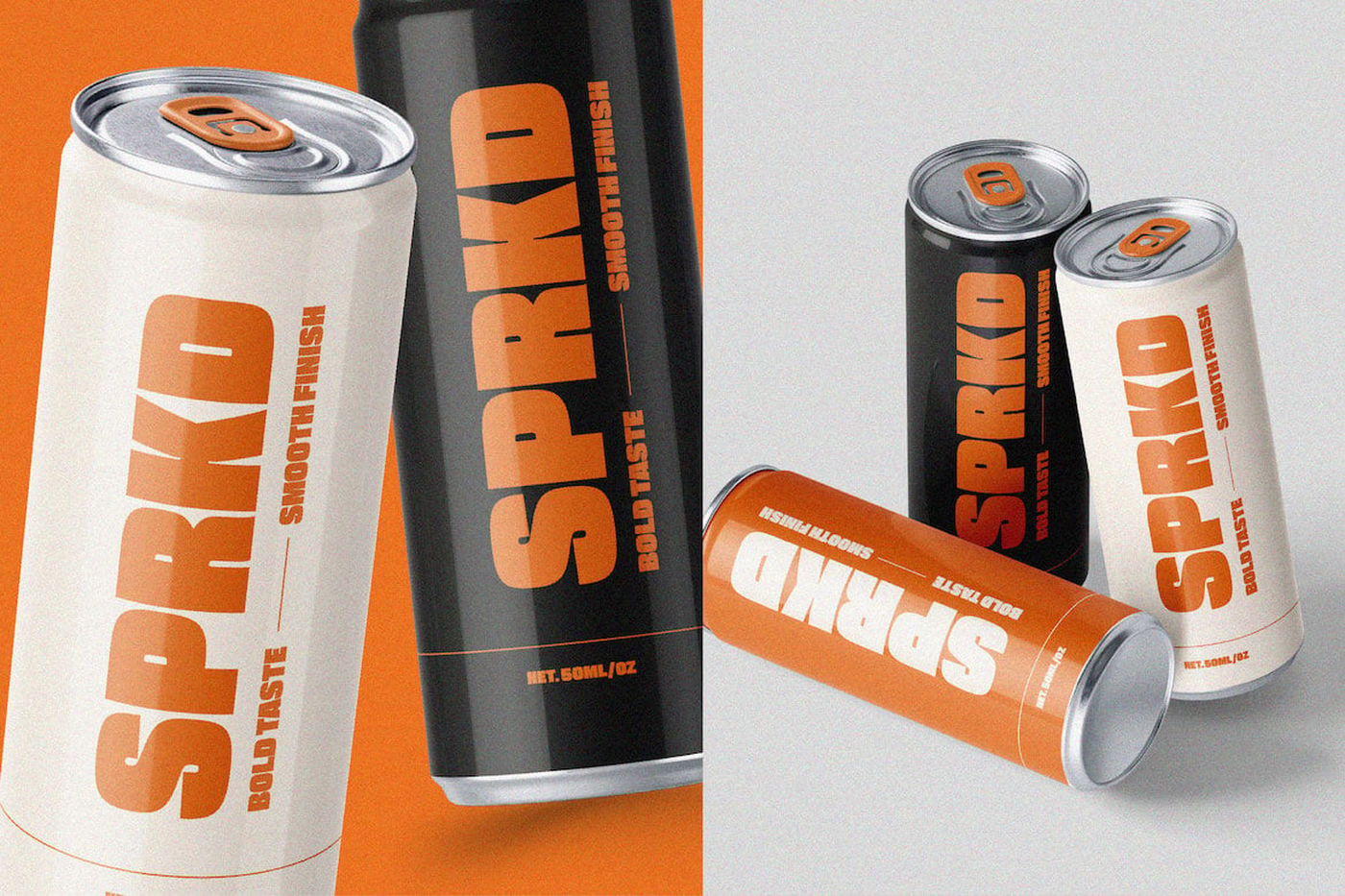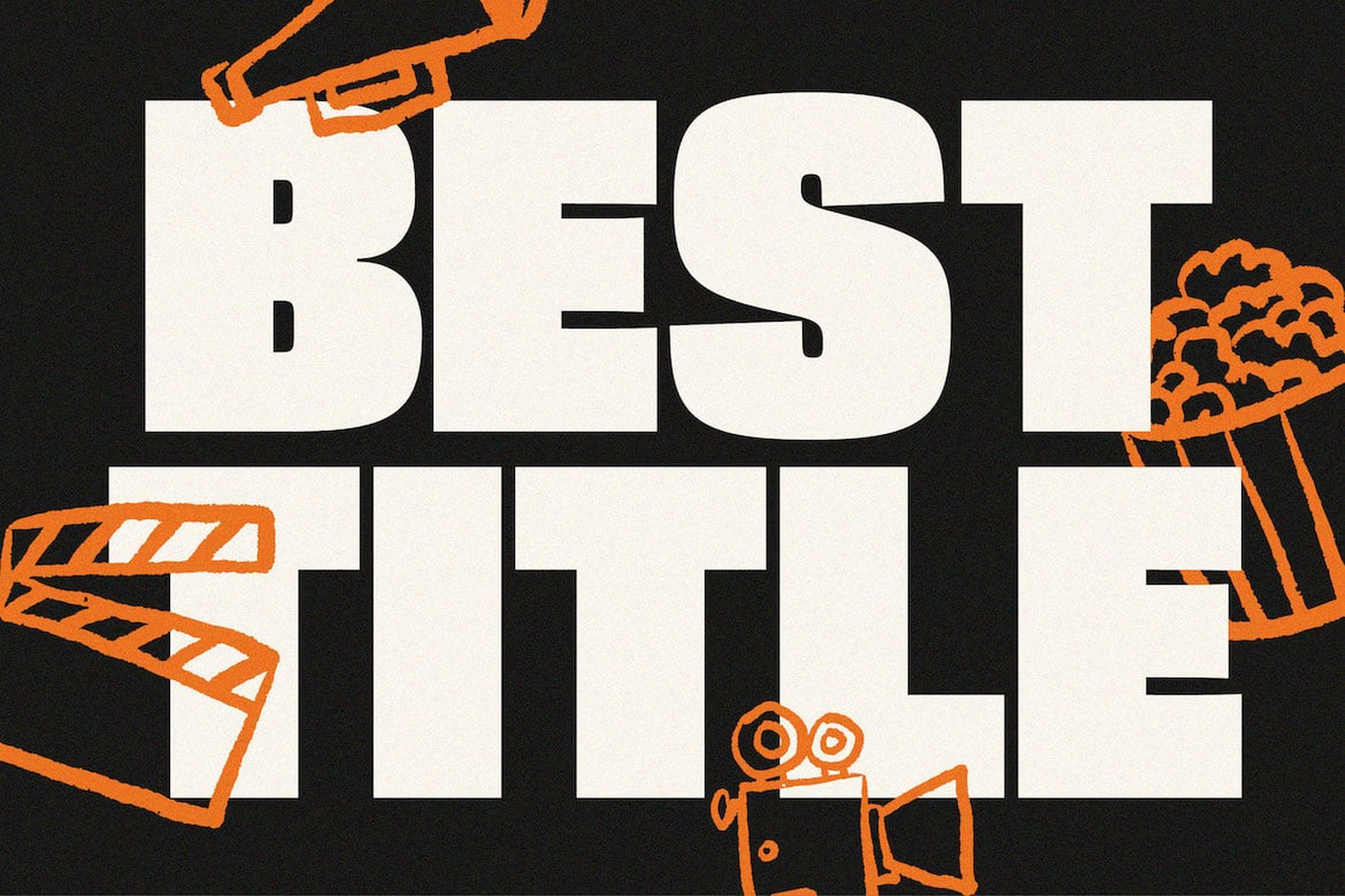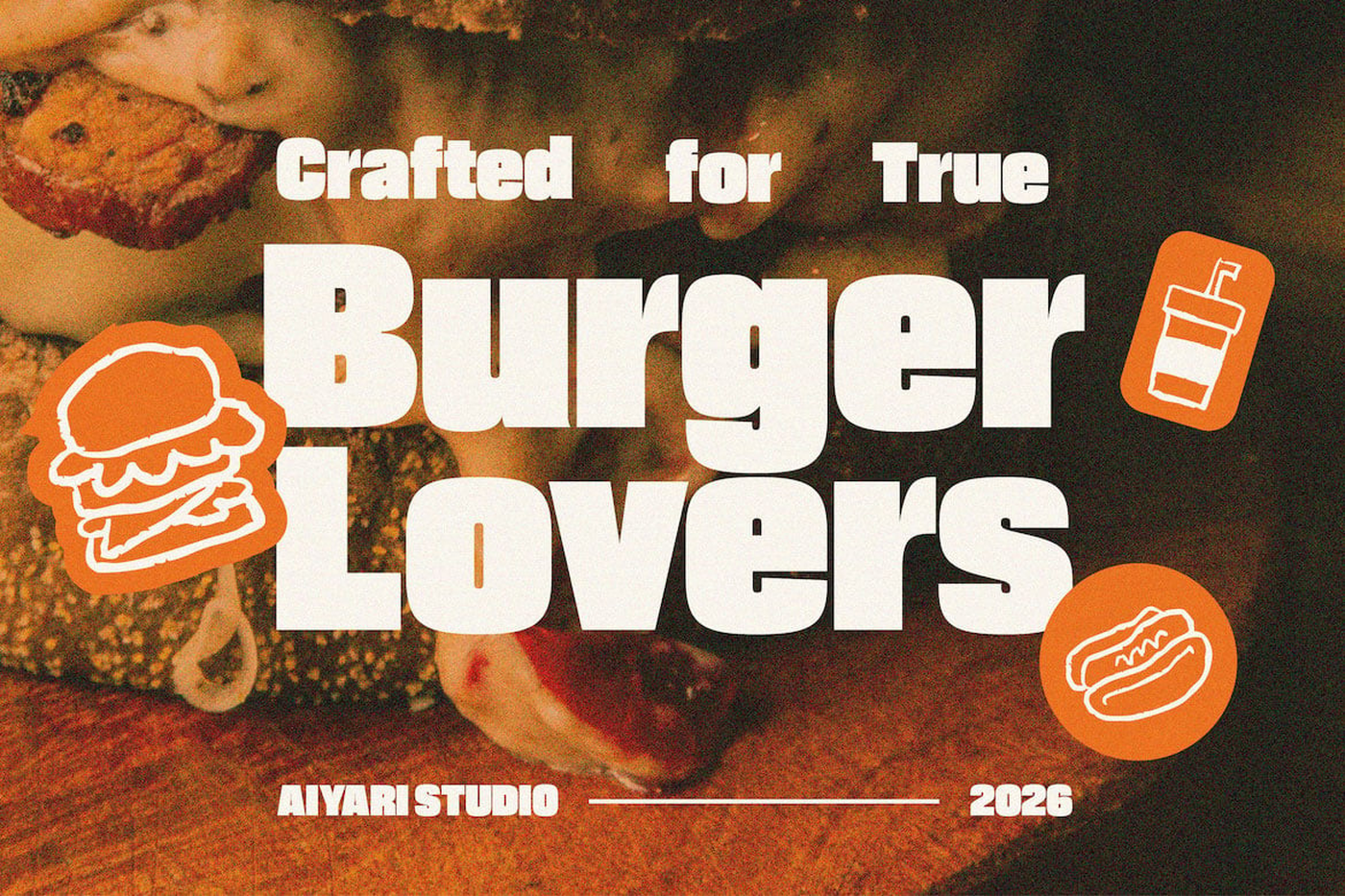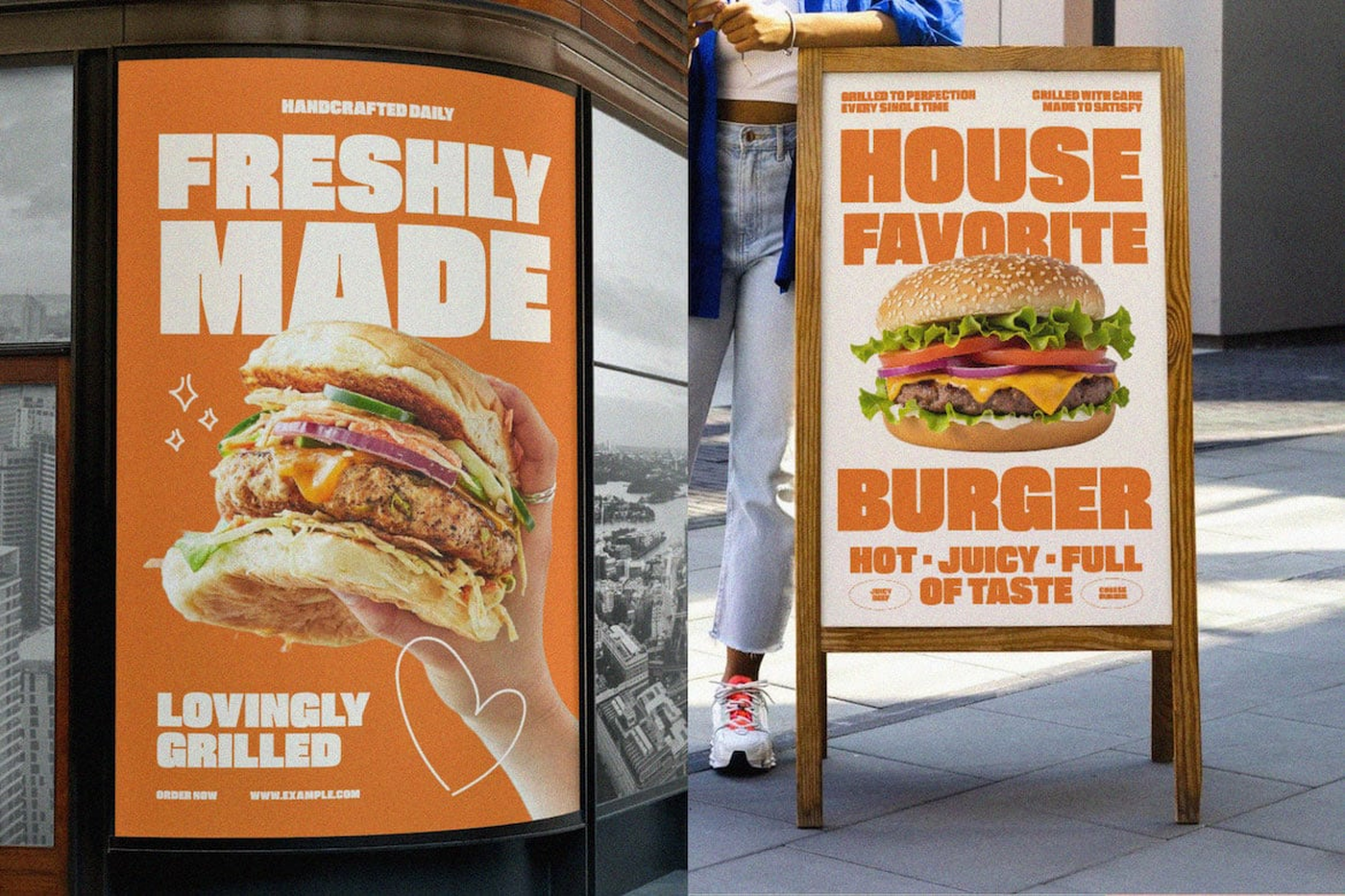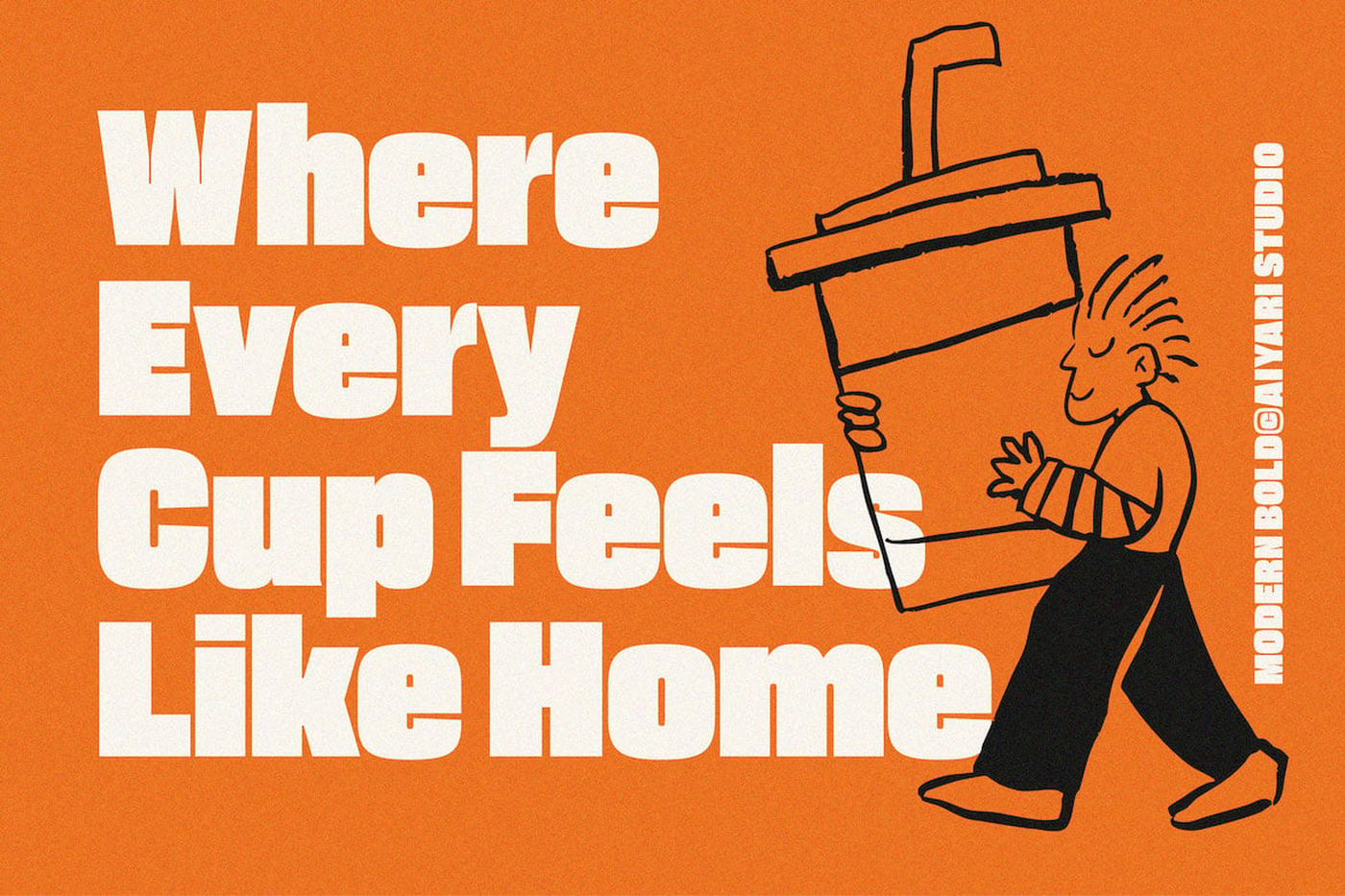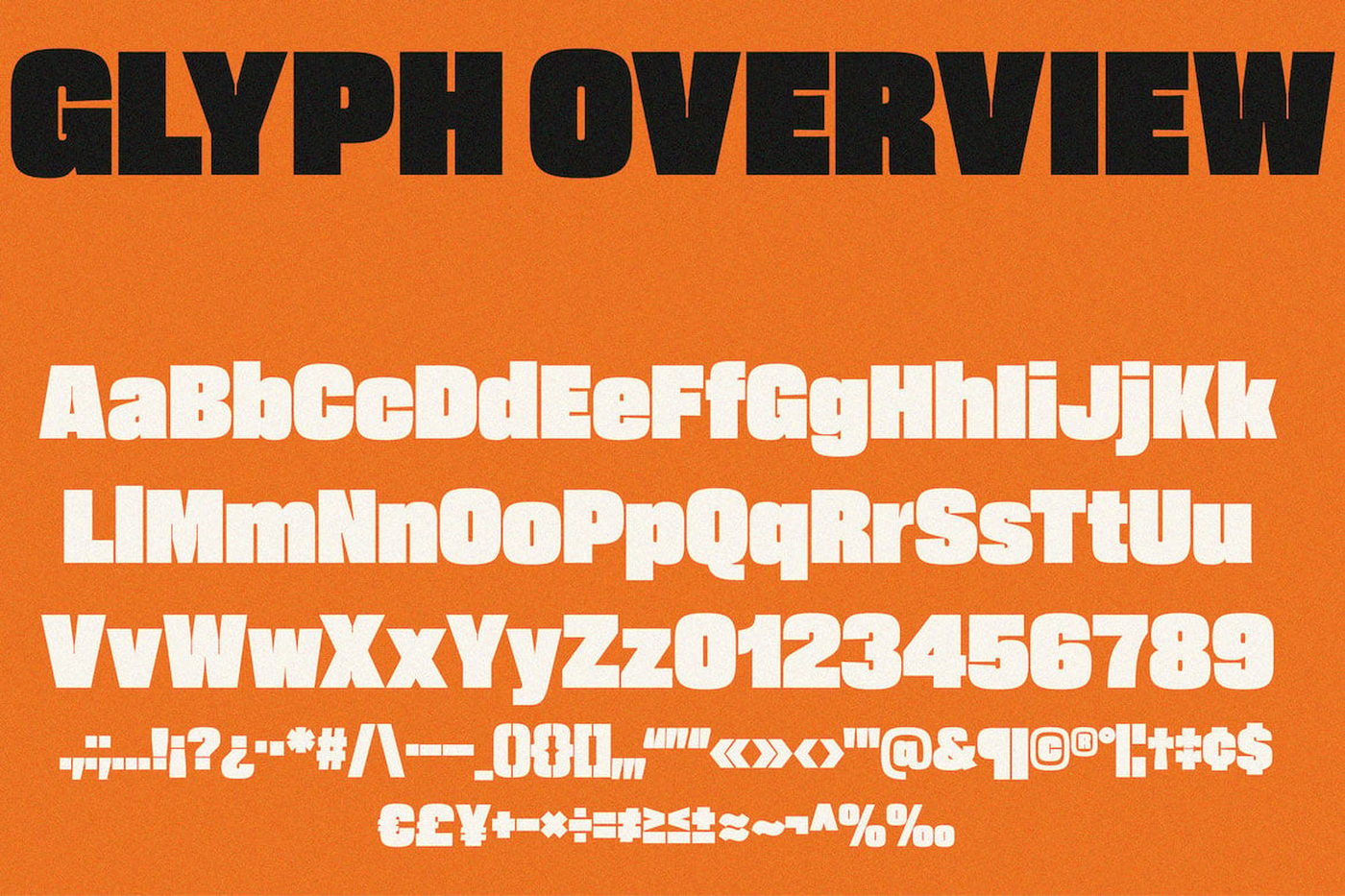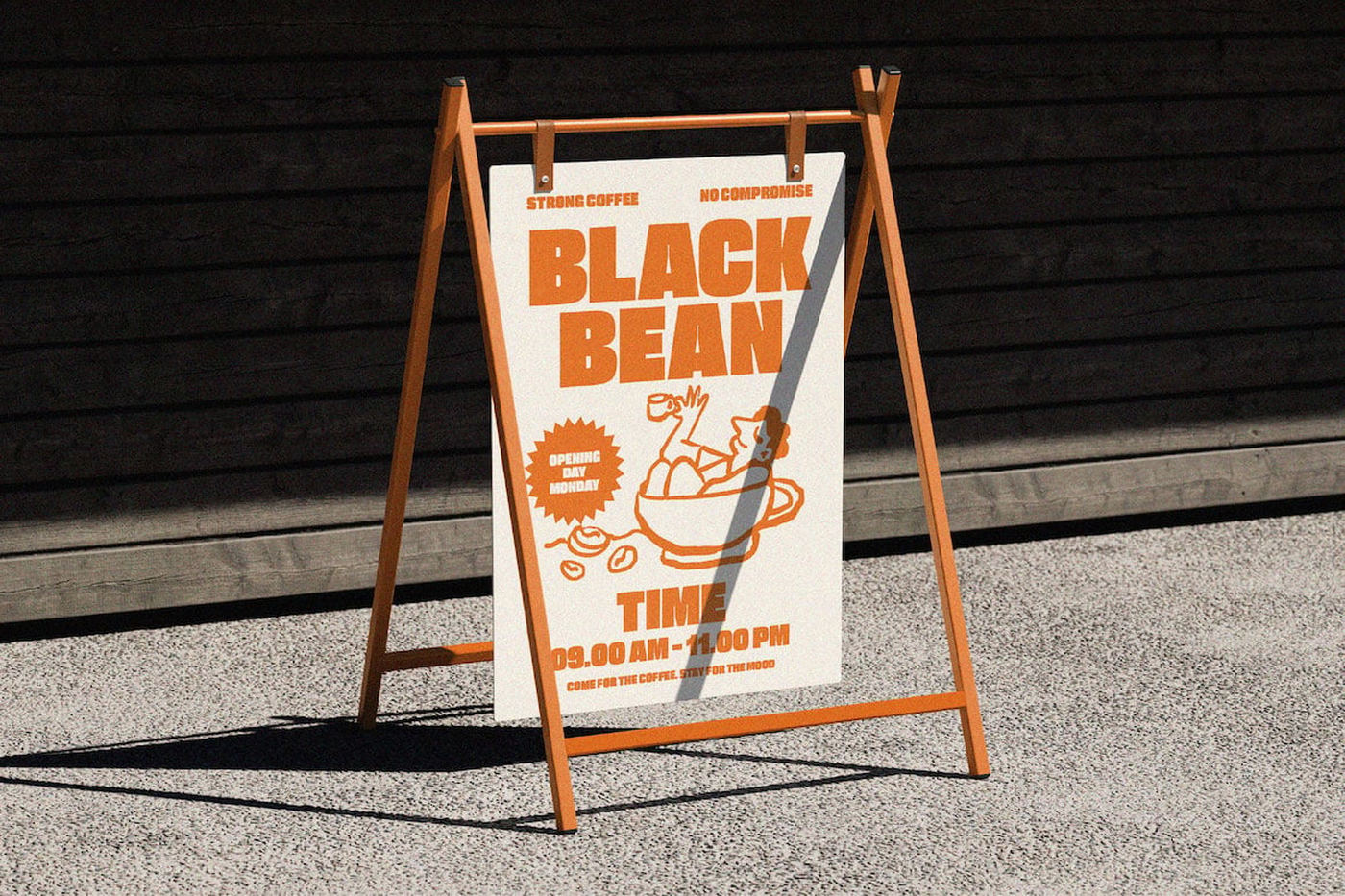
Modern Bold - Display Font
Modern Bold is a heavy-weight display typeface designed for maximum impact in contemporary branding. Its chunky structure, tight spacing, and postmodern retro influence make it a powerhouse for visual identities that demand attention. Whether it’s anchoring a cafe logo, shouting across a promotional poster, or laying down authority in a modern editorial spread, Ayr Modern Bold brings a confident, high-energy aesthetic. It thrives in high stakes layouts where bold character and a retro-modern edge matter and subtlety takes a back seat.